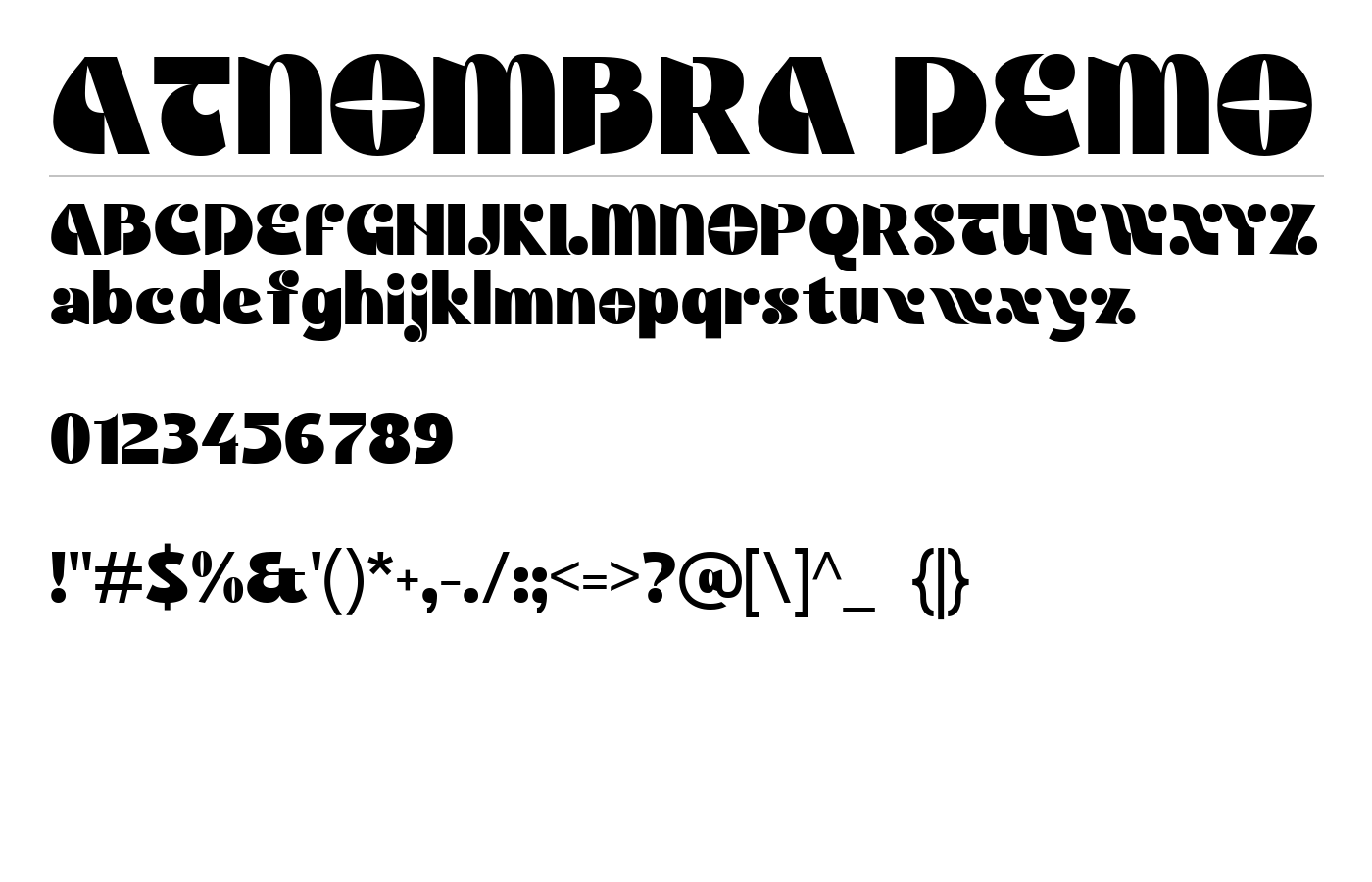
ATNOMBRA is a bold, geometric display font that combines thick, rounded shapes with sharp, distinctive cutouts, creating a striking modern look with a playful edge. Its high contrast and unique letterforms make it ideal for eye-catching headlines, logos, and creative branding where a strong, unconventional personality is desired. This font stands out best in larger sizes and artistic contexts, lending a contemporary and imaginative vibe to any design.
ATNOMBRA Font
About ATNOMBRA Font